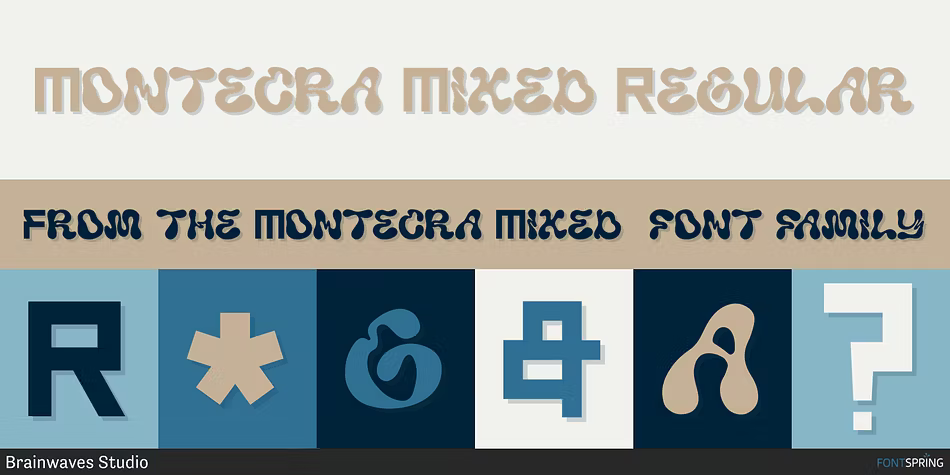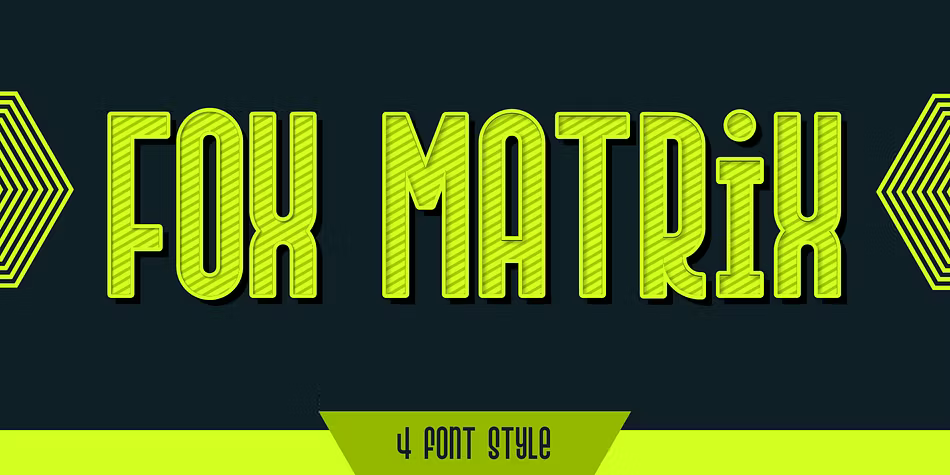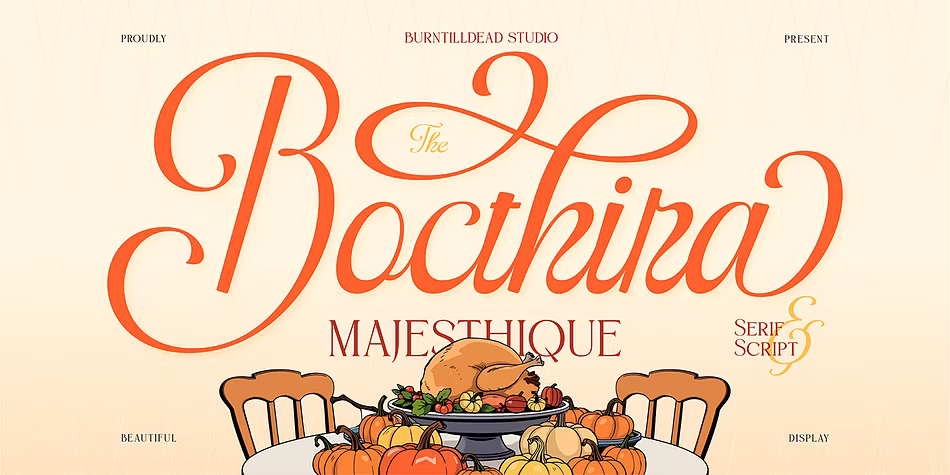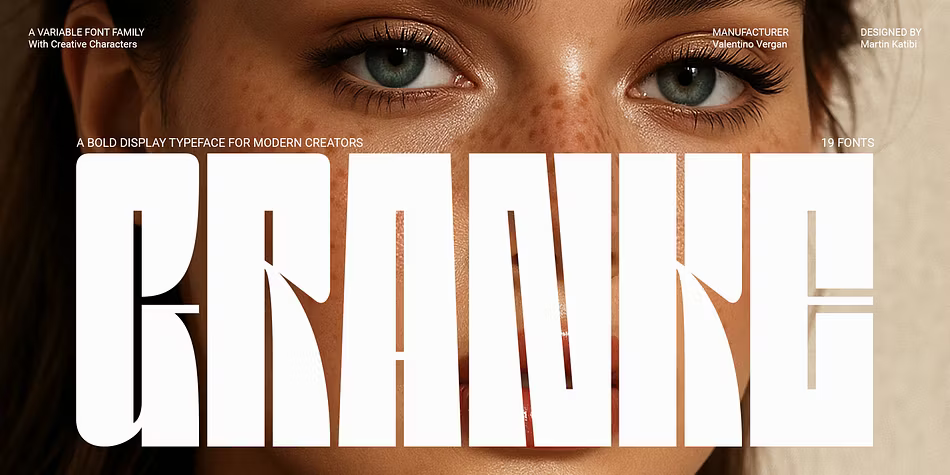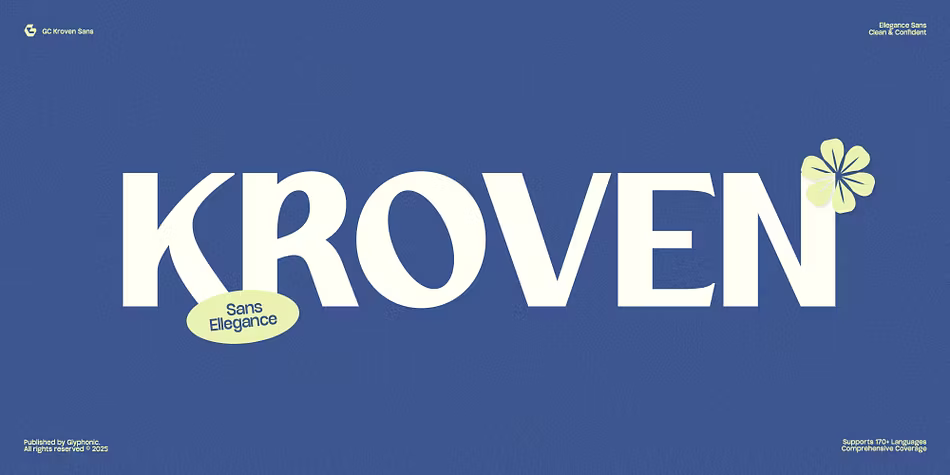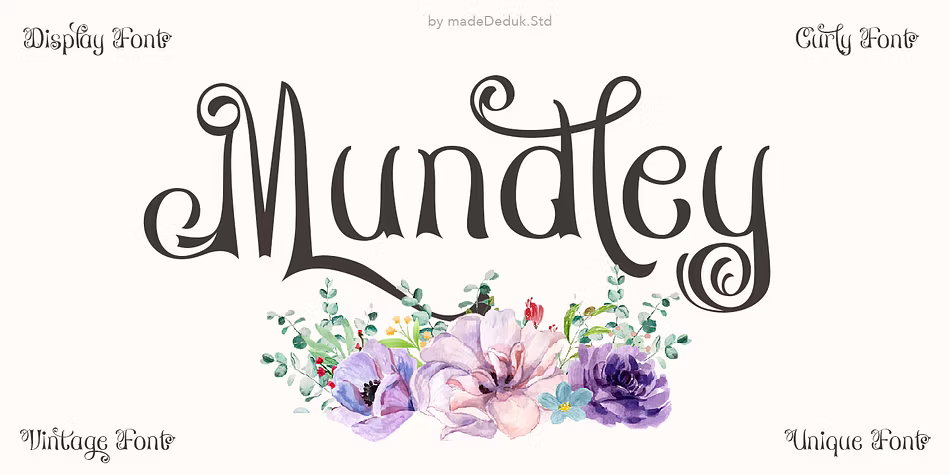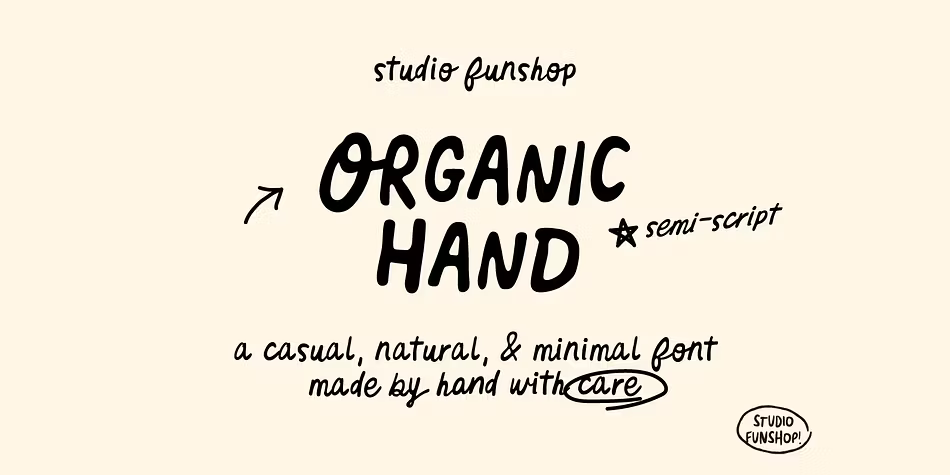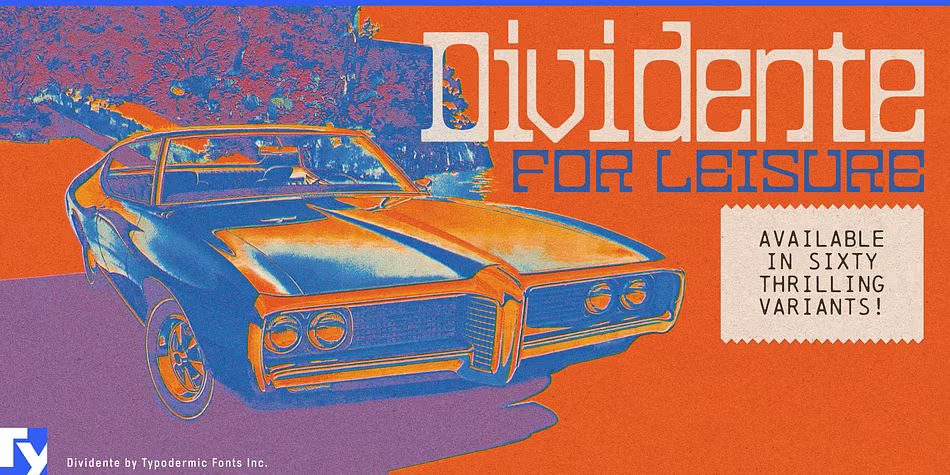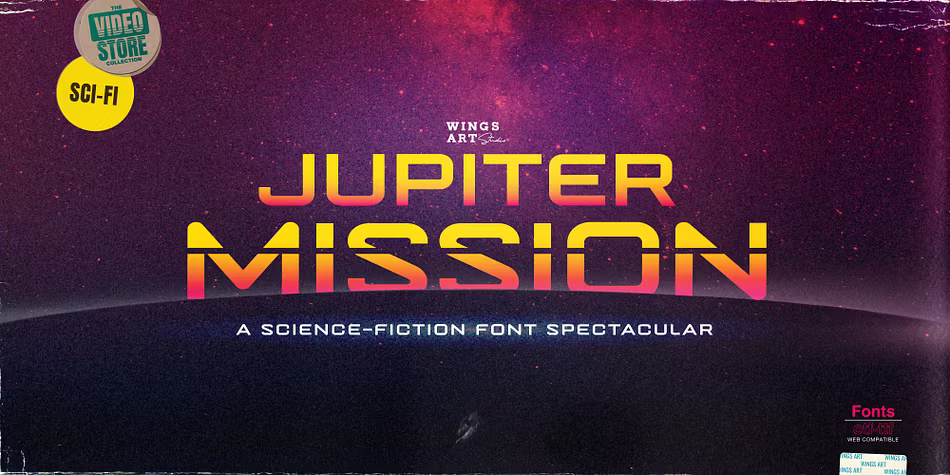
Display fonts for October 29th
In the world of typography, display fonts shine as bold and expressive choices that captivate attention. This post explores an exciting collection of display fonts, each with its unique characteristics and applications. From the playful curves of Montecra Mixed to the futuristic vibes of Jupiter Mission, these fonts are perfect for branding, posters, and creative projects. Fonts like Fox Matrix and Granke combine modern aesthetics with versatile designs, making them suitable for diverse applications. Meanwhile, Bocthira Majesthique and Celebrate Holiness add warmth and elegance to any project. Join us as we dive into the fascinating features of these standout display fonts.
Montecra Mixed
Montecra Mixed stands out as a bold and unconventional display font, blending playful curves with sharp angles. This unique typeface is perfect for creatives who aim for fun and expressive designs. From dynamic posters to engaging social media visuals, Montecra Mixed infuses energy and personality into any project. Its lively appearance ensures that it never goes unnoticed, making it an excellent choice for those looking to make a memorable impression.
Fox Matrix
Fox Matrix is a striking modern display font that seamlessly merges a futuristic vibe with a geometric aesthetic. Available in four styles—Regular, Strokes, Outline, and Shadow—this font provides incredible versatility for creative endeavors. Its bold and attention-grabbing appearance is ideal for branding, headlines, posters, and any digital project that seeks to stand out. With clean lines and dynamic textures, Fox Matrix injects a sense of motion and excitement into any design, making it a perfect fit for gaming graphics and urban-themed projects. Elevate your designs with the bold statement of Fox Matrix.
Bocthira Majesthique
Introducing Bocthira Majesthique, a beautifully crafted font that combines serif elegance with a flowing script. This typeface evokes a cozy and welcoming atmosphere, perfect for heartfelt designs such as holiday invitations, Thanksgiving menus, and seasonal branding. The timeless serif adds a majestic touch, while the graceful script brings warmth and sophistication. Each letter harmoniously blends style and sentiment, making it an ideal choice for greeting cards, event invitations, and any design that aims to convey gratitude and celebration. With Bocthira Majesthique, every message feels special and beautifully presented.
Granke
Granke is not just a font; it's a bold declaration for designers seeking a powerful and versatile typeface. With its impressive tall letterforms and striking presence, Granke is designed for modern creatives who work with diverse formats and languages. Whether you're crafting brand identities, editorial layouts, or advertising campaigns, Granke provides the flexibility to create visually compelling designs. Its range of weights, from Thin to Black, along with obliques, allows for dynamic typography that makes a statement. Ideal for contemporary design challenges, Granke is the perfect choice for those who aim to convey confidence and cultural relevance in their work.
Celebrate Holiness
Celebrate Holiness is a delightful handwritten font that spreads joy and positivity through its charming design. This versatile typeface is ideal for a variety of applications, including stationery, logos, apparel, and invitations. Its playful yet elegant style brings a personal touch to any project, making it perfect for celebrating moments that matter. Whether you are designing greeting cards, posters, or social media graphics, this font adds a warm, uplifting vibe to your creations, ensuring that your messages resonate with happiness and celebration.
GC Kroven
GC Kroven is a sophisticated modern sans serif font that strikes a balance between elegance and clarity. It is well-suited for diverse design applications, including headlines, branding, and editorial layouts. With clean lines and refined proportions, it adds a touch of sophistication to any project. This versatile typeface includes uppercase and lowercase letters, ligatures, and multilingual support, making it ideal for both print and digital designs. Whether you're working on fashion branding or contemporary advertising, GC Kroven ensures your message stands out with style and grace.
Mundley
Mundley is a beautifully crafted display font featuring curly styles and intricate ligatures. This decorative typeface merges classic charm with modern elegance, making it ideal for formal applications such as invitations, logos, and packaging. Its versatility is enhanced by a variety of alternatives and ligatures, allowing for creative flexibility in every design. Whether you're creating stationery, restaurant menus, or greeting cards, Mundley adds a touch of sophistication and whimsy. With its detailed design, it promises to elevate any project and leave a lasting impression.
Organic Hand
Organic Hand is an inviting semi-script font that beautifully balances the simplicity of print with the fluidity of handwritten script. Each letter is crafted to reflect natural curves and relaxed strokes, creating a personal and lively expression in every word. Ideal for branding, packaging, and social media designs, this font radiates warmth and approachability. Its clean legibility ensures that your messages are easily understood, while its charming character adds a unique touch to any project. With Organic Hand, you can infuse your designs with a sense of authenticity and warmth.
Dividente
Dividente is a captivating square display font that draws inspiration from the design aesthetics of the late 1960s. Its unique combination of structured geometry and soft, rounded corners creates a visually striking typeface. This font's versatility is enhanced with ten weights ranging from Thin to Black, along with three widths—Normal, Expanded, and Condensed—allowing for creative flexibility in various design applications. Ideal for both modern and retro-themed projects, Dividente supports multiple languages and includes a wide array of currency symbols, making it a fantastic choice for international branding. With its warm personality and innovative design, Dividente brings a distinctive voice to any project.